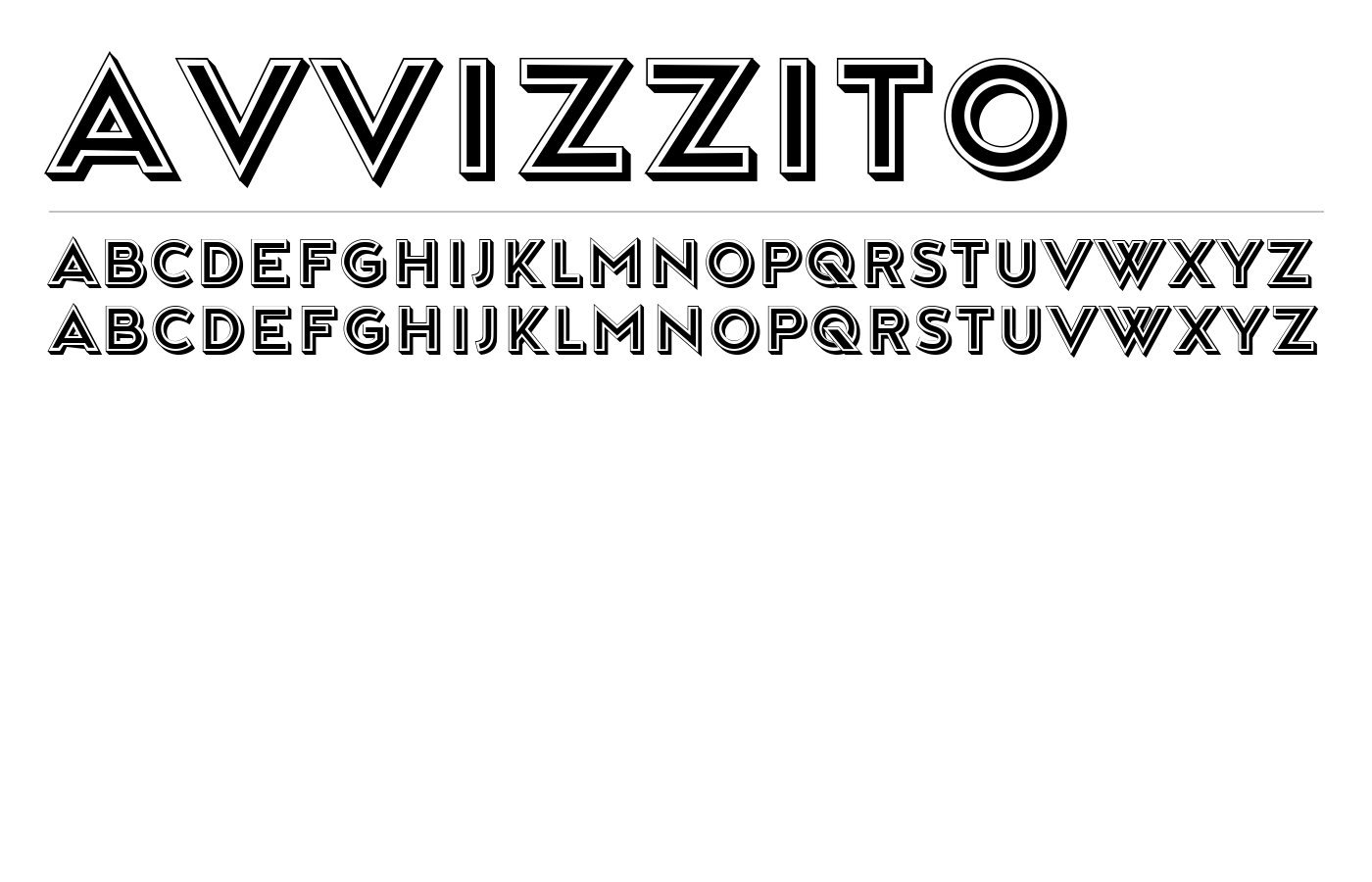
Avvizzito is a bold, geometric sans-serif display font with a striking layered shadow effect that gives it a three-dimensional, vintage-inspired look. Its clean lines, sharp angles, and uppercase-only style make it perfect for eye-catching headlines, logos, and posters where a dramatic, retro-modern feel is desired. This font stands out in branding and packaging that aim to convey boldness and a playful yet sophisticated character.
Avvizzito Font
About Avvizzito Font